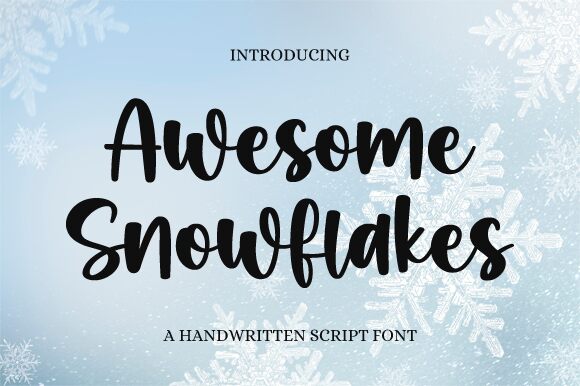
Awesome Snowflakes font, designed by Graphix Line Studio, captivates with its charming handwritten style. This free font exudes a playful elegance, featuring smooth curves and flowing lines that mimic the natural elegance of snowflakes. Its bold presence makes it perfect for creative projects needing a personal touch.
With its captivating aesthetic appeal, Awesome Snowflakes is ideal for greeting cards, festive invitations, or social media graphics designed to evoke warmth and joy. Download this eye-catching font to add a whimsical flair to your designs today!